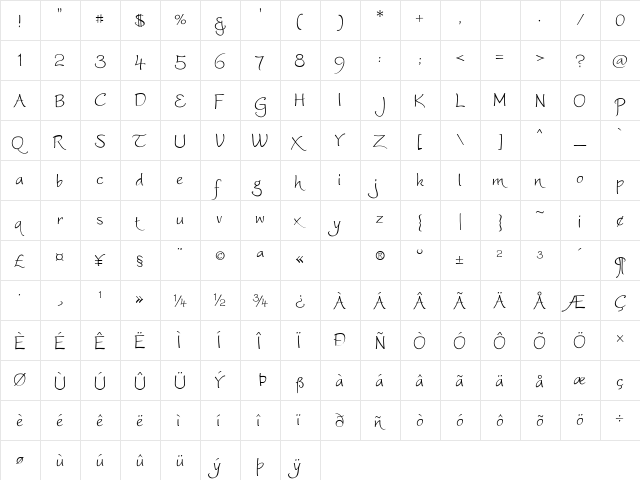
Worstveld Sling Extra Regular
Design Context for Worstveld Sling Extra Typeface
Worstveld Sling Extra is a composed and adaptable typeface that performs quietly and consistently across a wide range of design contexts.